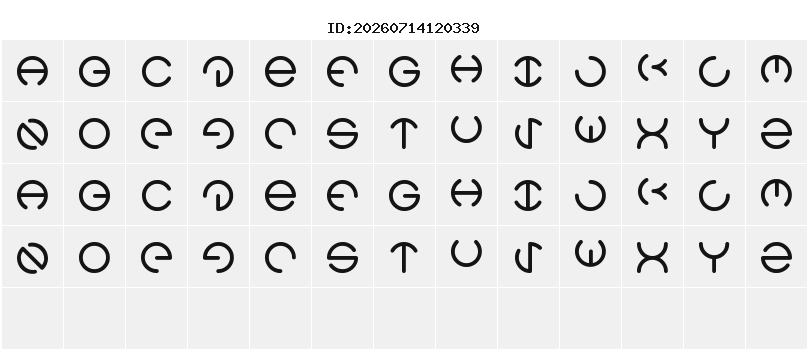
• Font Name: Heather Thomas
• Full Font Name: Heather Thomas
About Heather Thomas.ttf
Heather Thomas.ttf is a modern, elegant sans-serif font designed for ultimate readability and visual harmony. Perfect for branding, headlines, web design, and print materials.